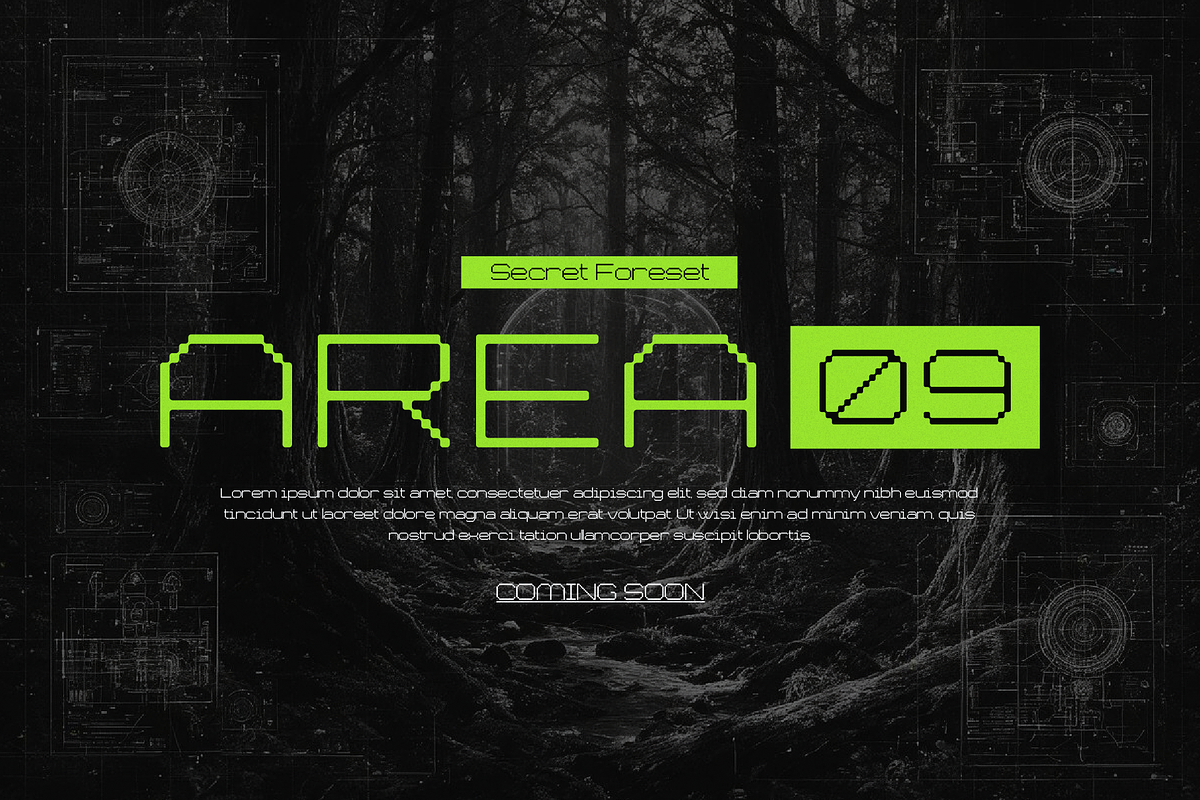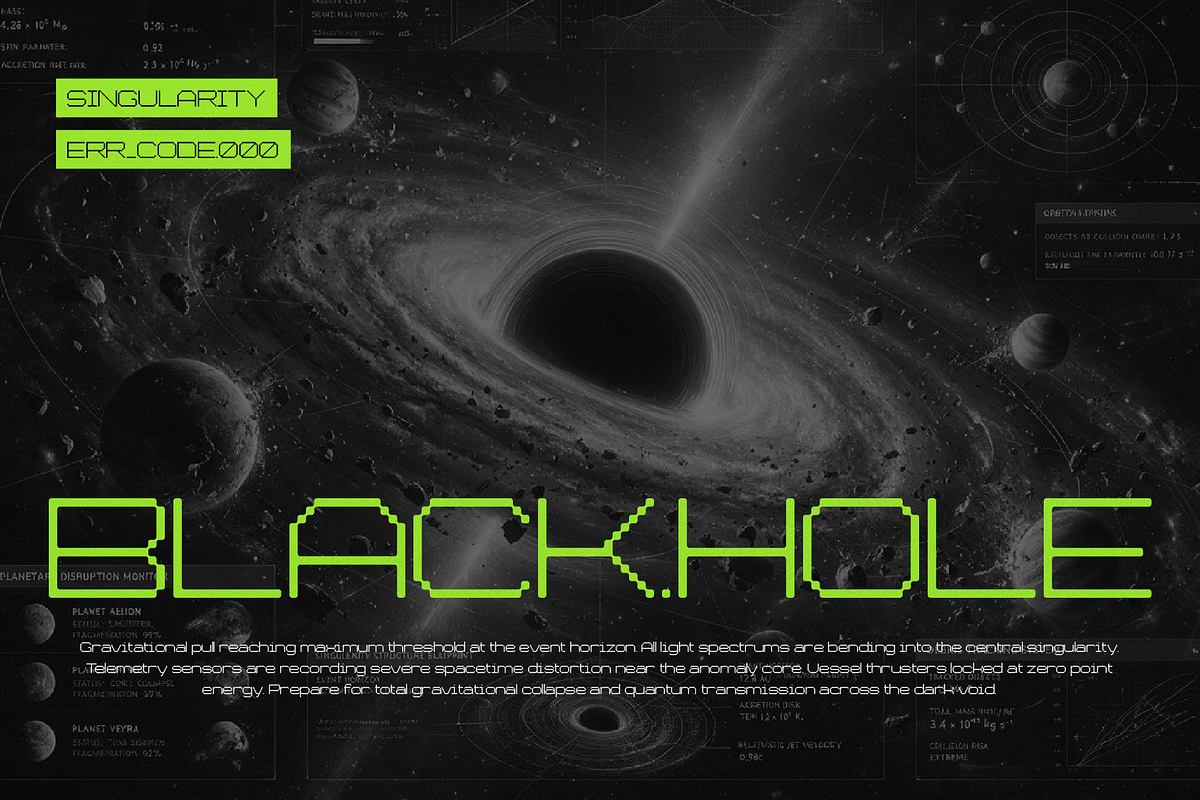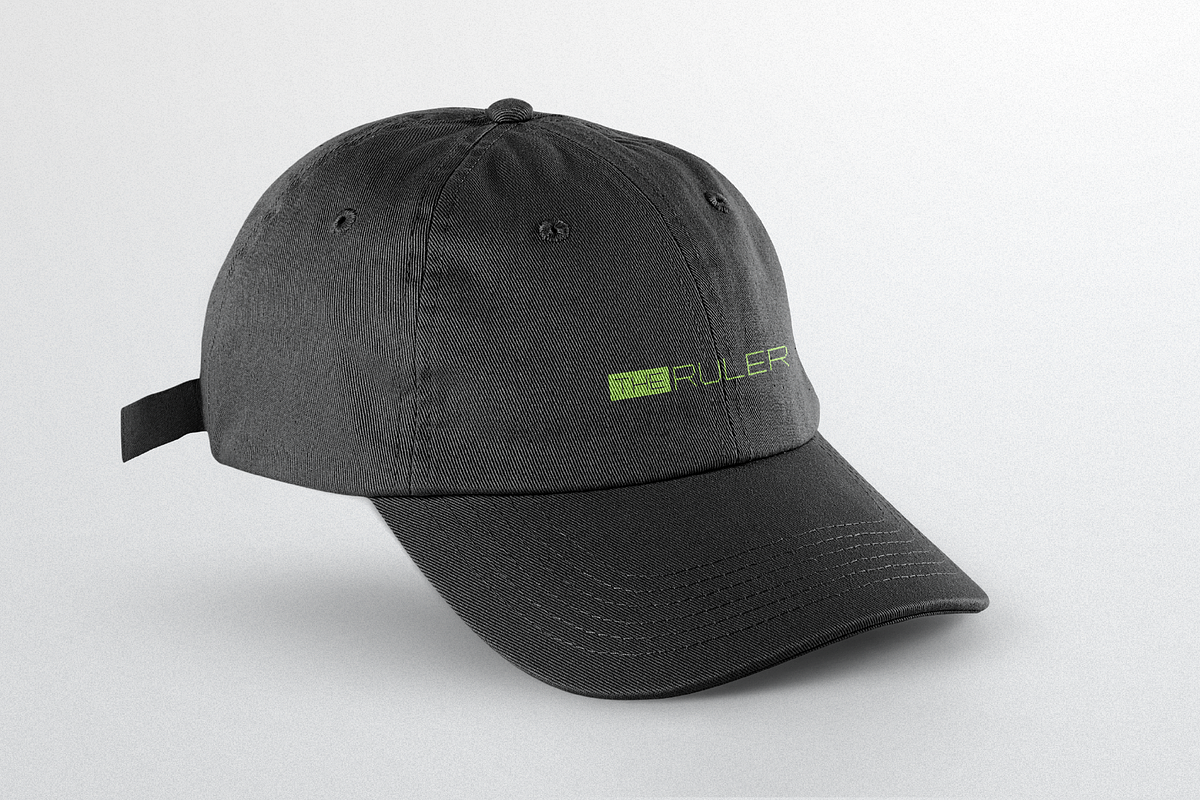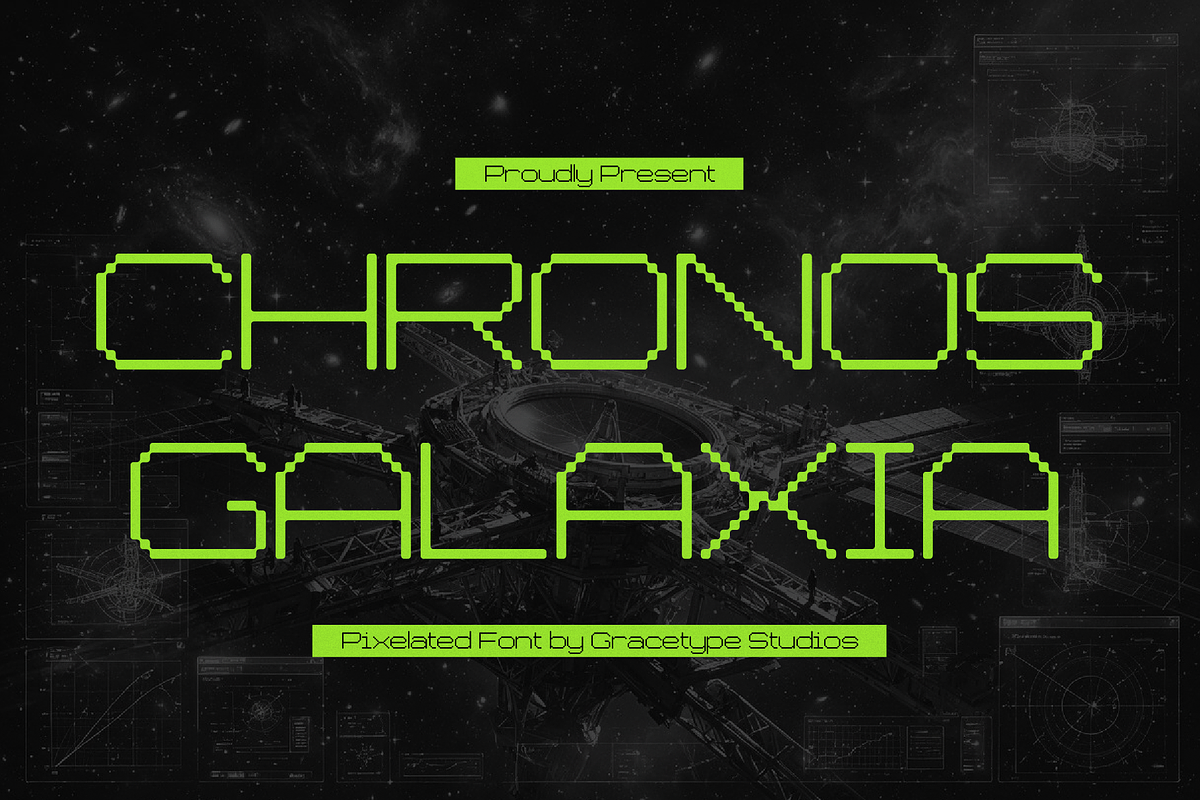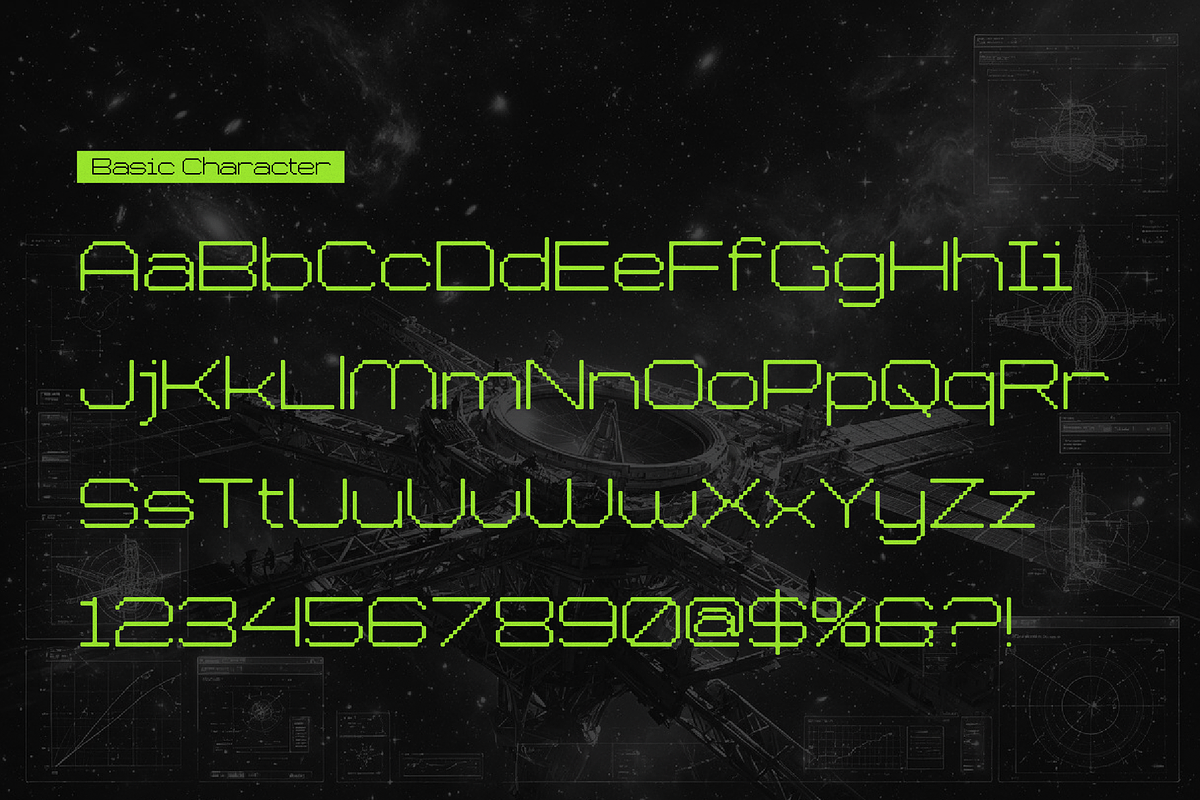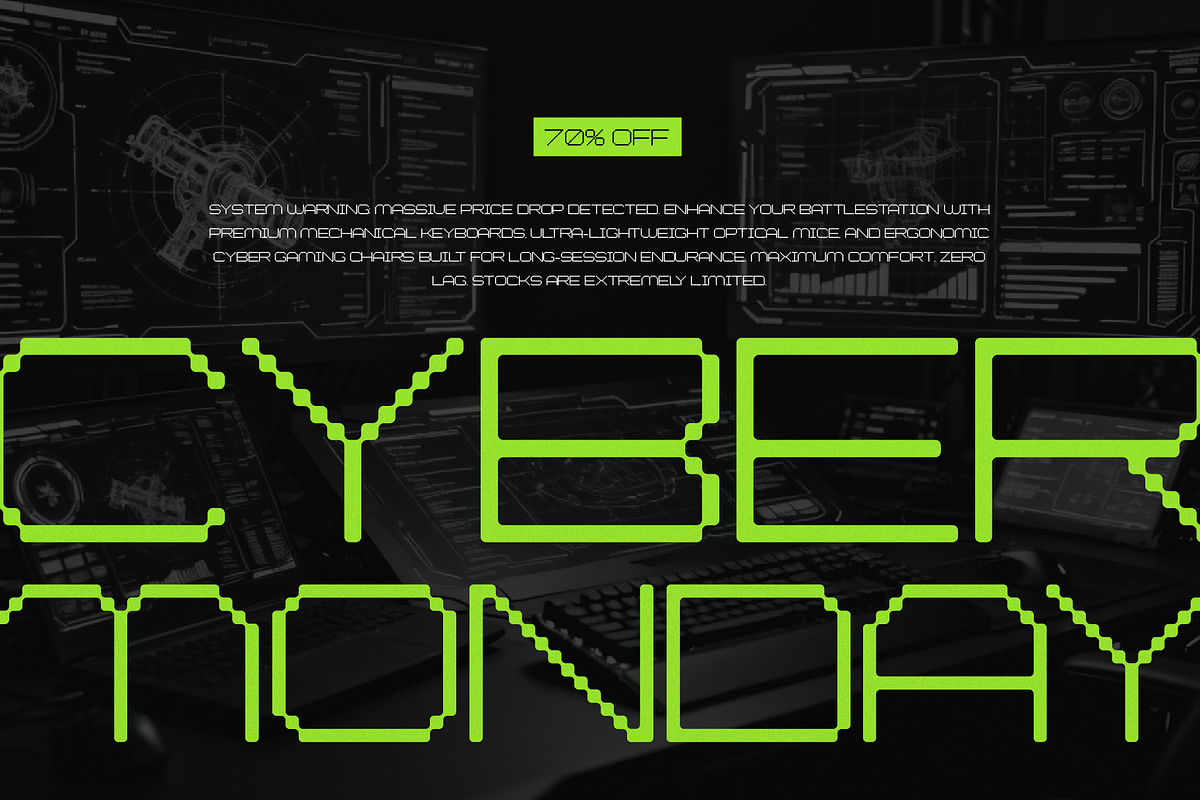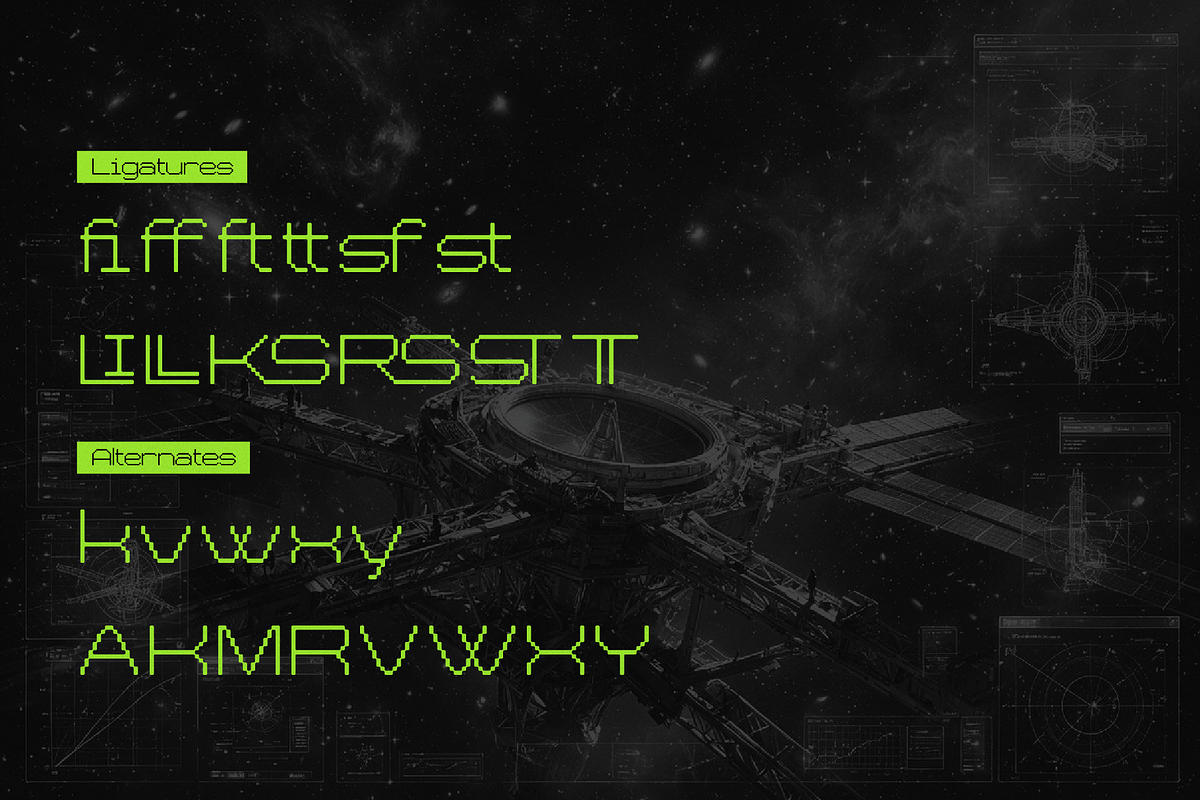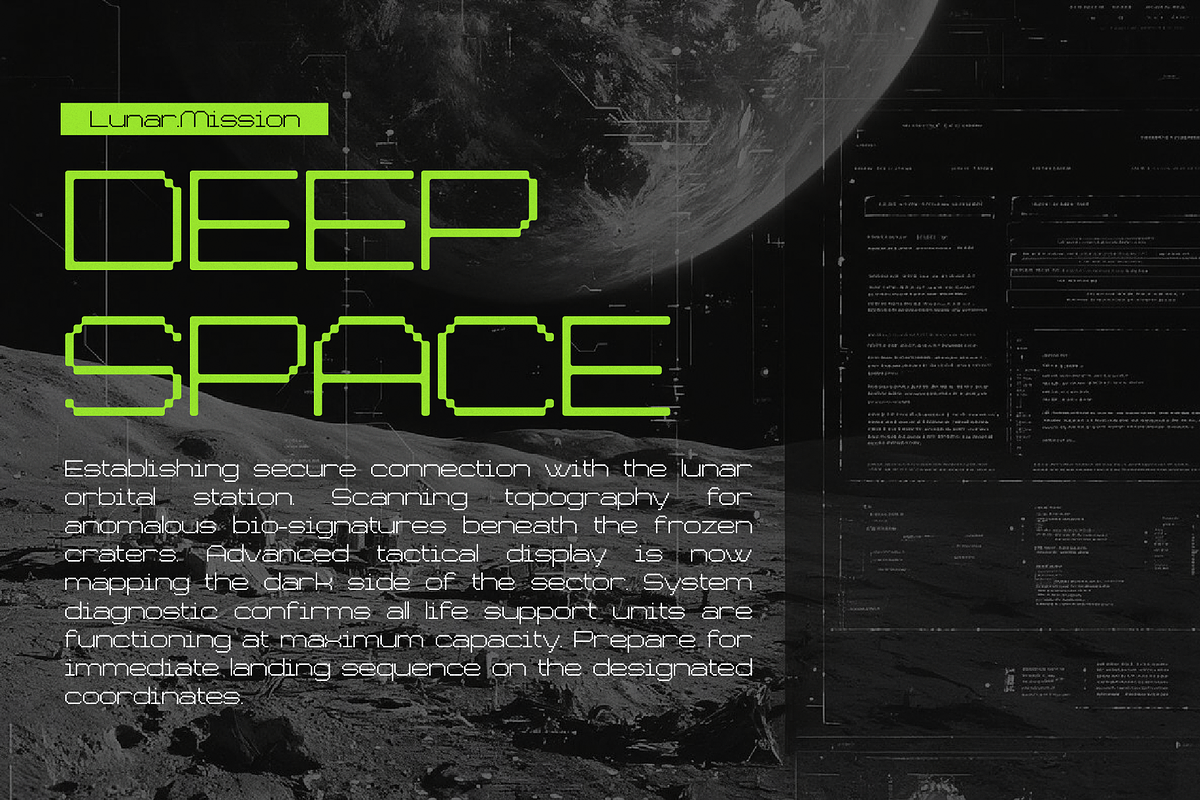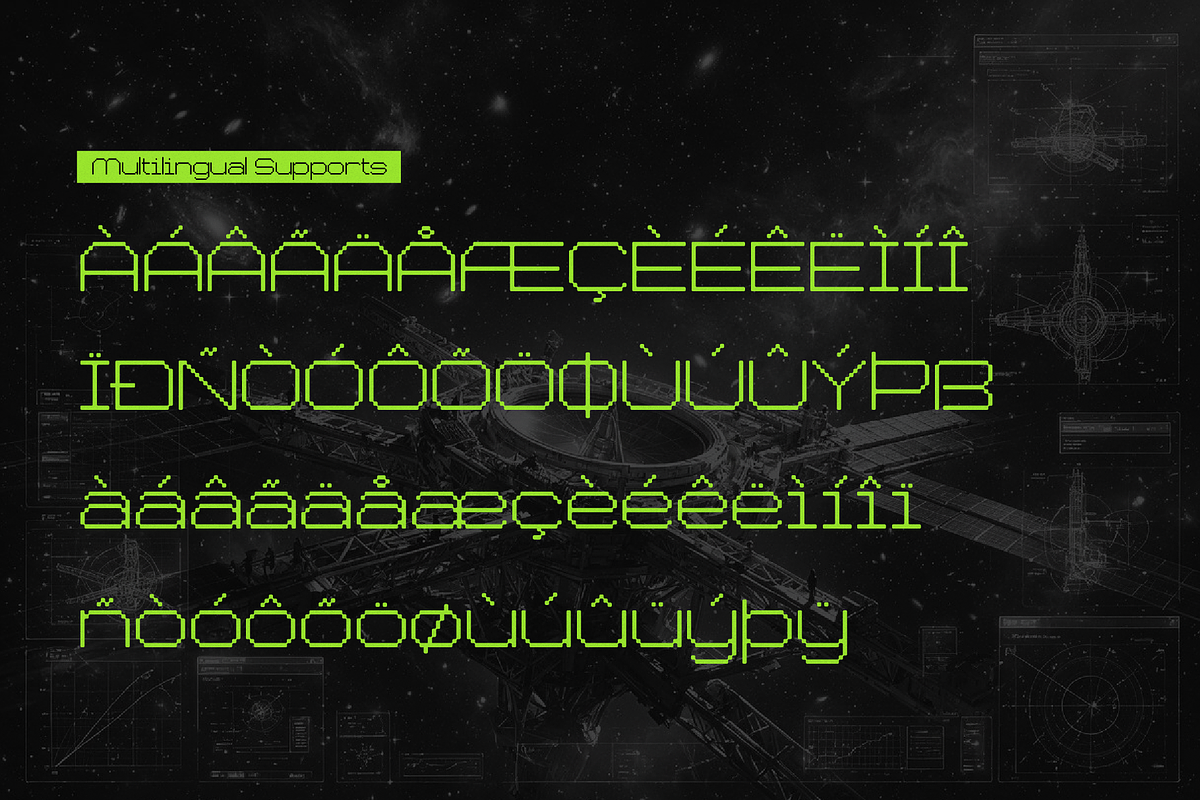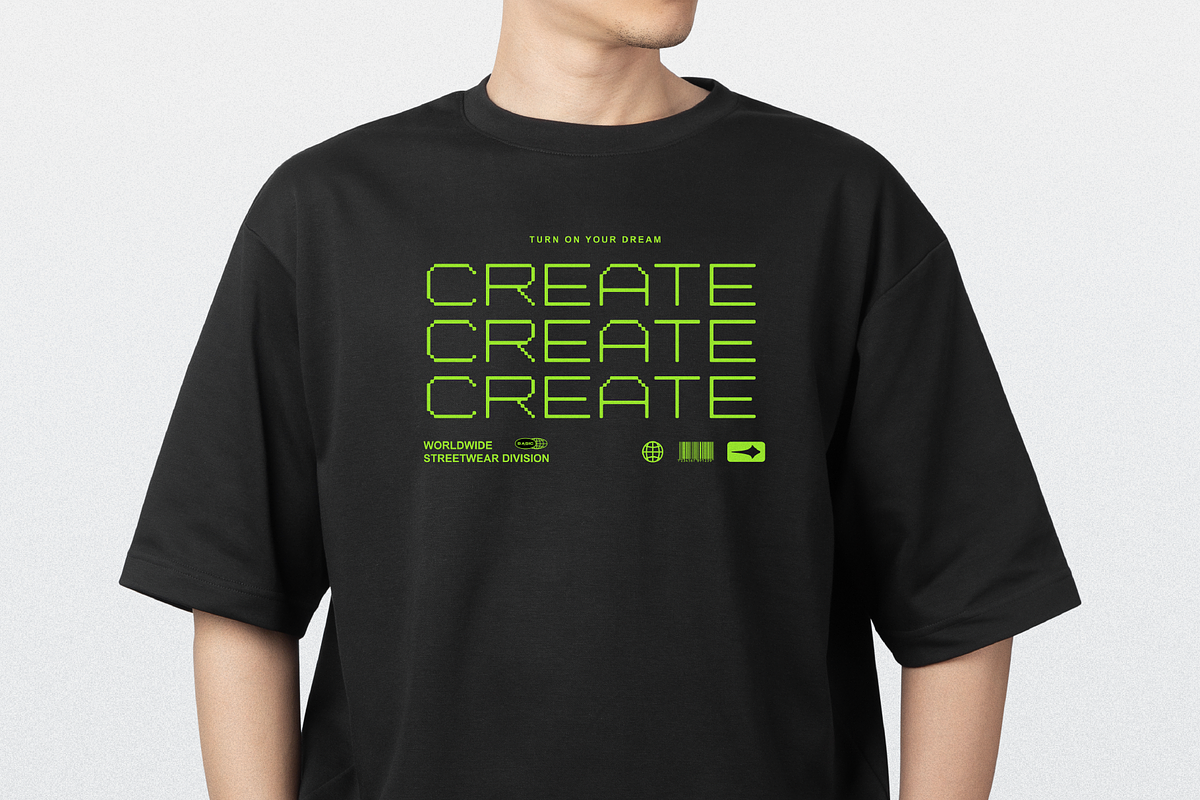
Chronos Galaxia | Pixelated Font
Chronos Galaxia | Pixelated Font, from Gracetypestudio, suitable for any projects such as: logos, branding projects, homeware designs, product packaging, mugs, quotes, posters, shopping bags, t-shirts, book covers, name card, invitation cards, greeting cards, label, photography, watermark, special events, and all your other lovely projects that need a Pixelated taste.
Standard glyphs
Alternate and Ligature
Fonts include multilingual support